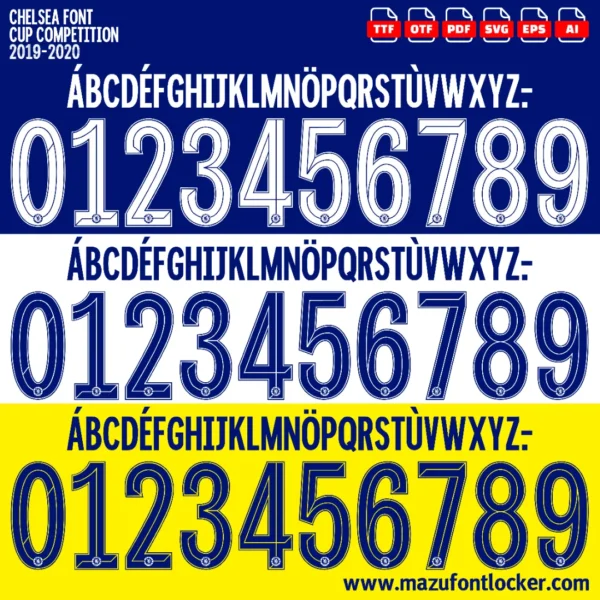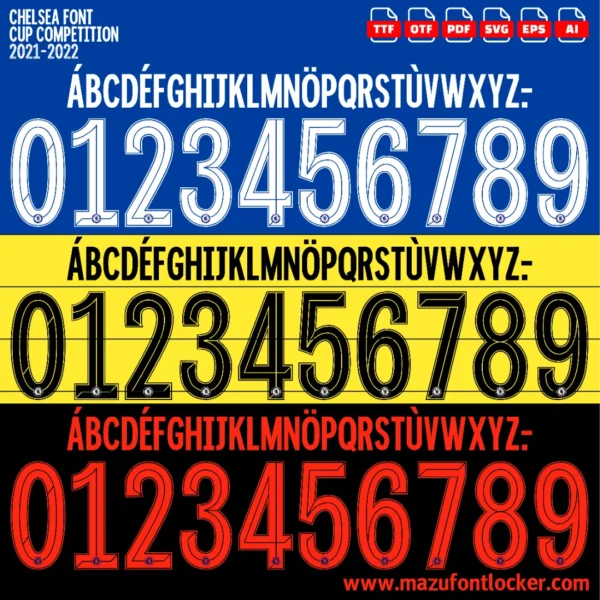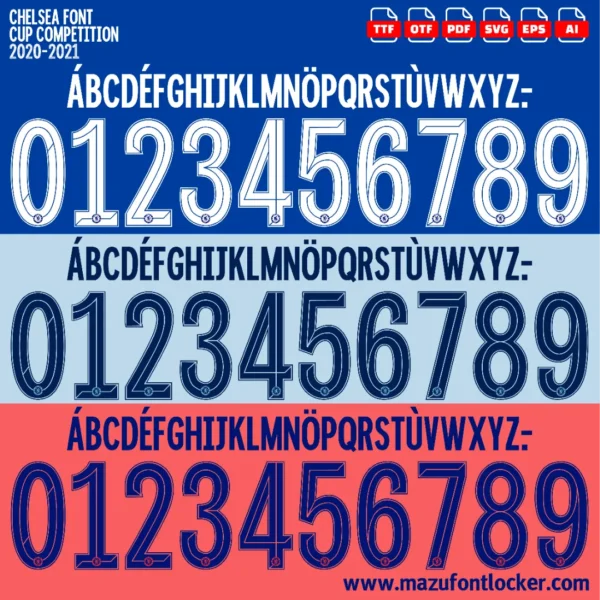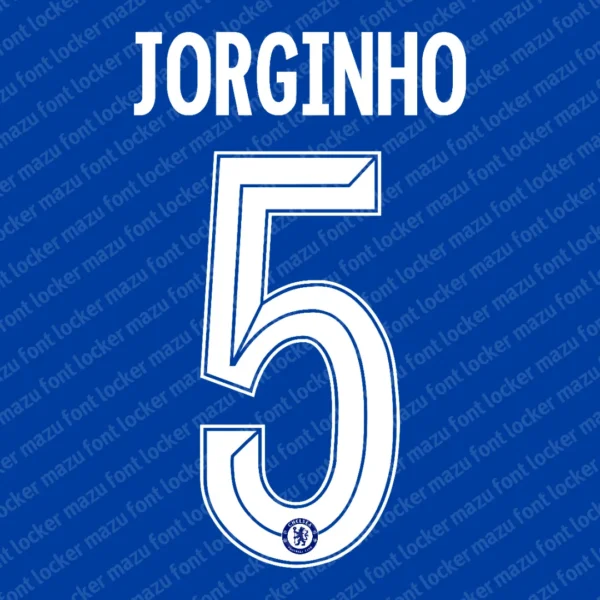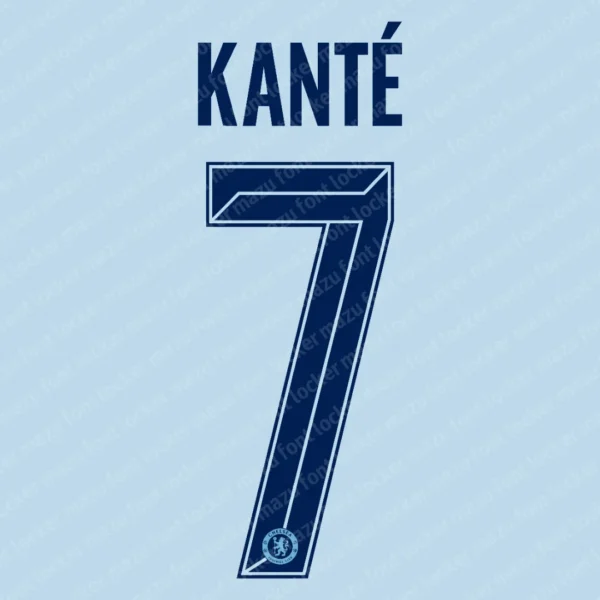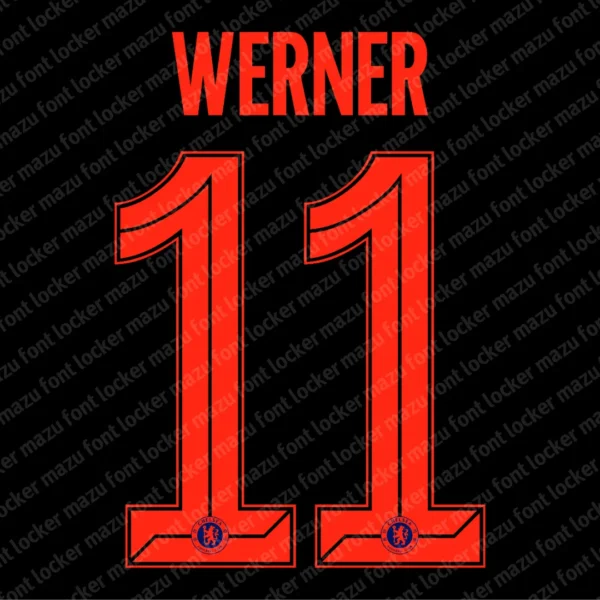
Chelsea 2019-2022 Font Vector – Legendary Blues Royal Masterpiece
This font captures the commanding, razor-sharp, thunderous, and precision-engineered lettering that perfectly embodies Chelsea’s iconic club identity, proud English heritage, never-say-die mentality, and raw football power — delivering unmatched authenticity, premium quality, explosive energy, and elite Premier League & European dominance for professional jersey mockups, dynamic football graphics, premium sports branding, passionate fan creations, and high-end design projects.
Chelsea 2019-2022 Font Vector – Iconic Blue & White Typeface
The Chelsea 2019-2022 Font Vector is a premium typeface that accurately recreates the official match lettering worn by Chelsea FC during the 2019-2022 seasons. This high-quality vector font kit captures the bold, clean, and instantly recognizable typography that perfectly complements the club’s iconic blue and white identity.
Designed for professional designers, football enthusiasts, and passionate Chelsea supporters, the Chelsea 2019-2022 Font Vector delivers exceptional authenticity for creating realistic jersey mockups, football merchandise, social media graphics, match posters, and custom fan artwork. Every character has been carefully recreated to match the powerful and precise visual style of one of England’s most successful football clubs.
This font stands out thanks to its precise vector construction and authentic club styling. Every letter and numeral has been meticulously recreated to match the official shirt lettering used throughout the 2019-2022 Premier League, FA Cup, and UEFA Champions League campaigns. Whether you’re producing professional kit templates or creating eye-catching football content, the Chelsea 2019-2022 Font Vector delivers a genuine match-ready appearance.
The lettering featured in the Chelsea 2019-2022 Font Vector combines clean geometric lines with powerful modern proportions. The result is a premium and highly readable typeface that reflects Chelsea’s winning mentality, precision, and legendary status in English and European football.
• Complete uppercase A–Z alphabet and numbers 0–9 in authentic Chelsea 2019-2022 style
• Create authentic Chelsea 2019-2022 home and away jersey mockups
• Includes authentic Premier League and UEFA Champions League badge glyph placement beneath player numbers
Chelsea 2019-2022 Season
The 2019-2022 period was a memorable era for Chelsea FC as they competed fiercely in the Premier League and won the UEFA Champions League in 2021. Wearing their signature blue and white colors, the club continued to embody excellence, ambition, and dominance in English and European football.
The Chelsea 2019-2022 Font Vector is an independently designed typeface package inspired by the official shirt lettering for the 2019-2022 seasons. It has been carefully recreated for football enthusiasts, graphic designers, collectors, and creators producing custom jersey concepts, football artwork, and fan-made projects.